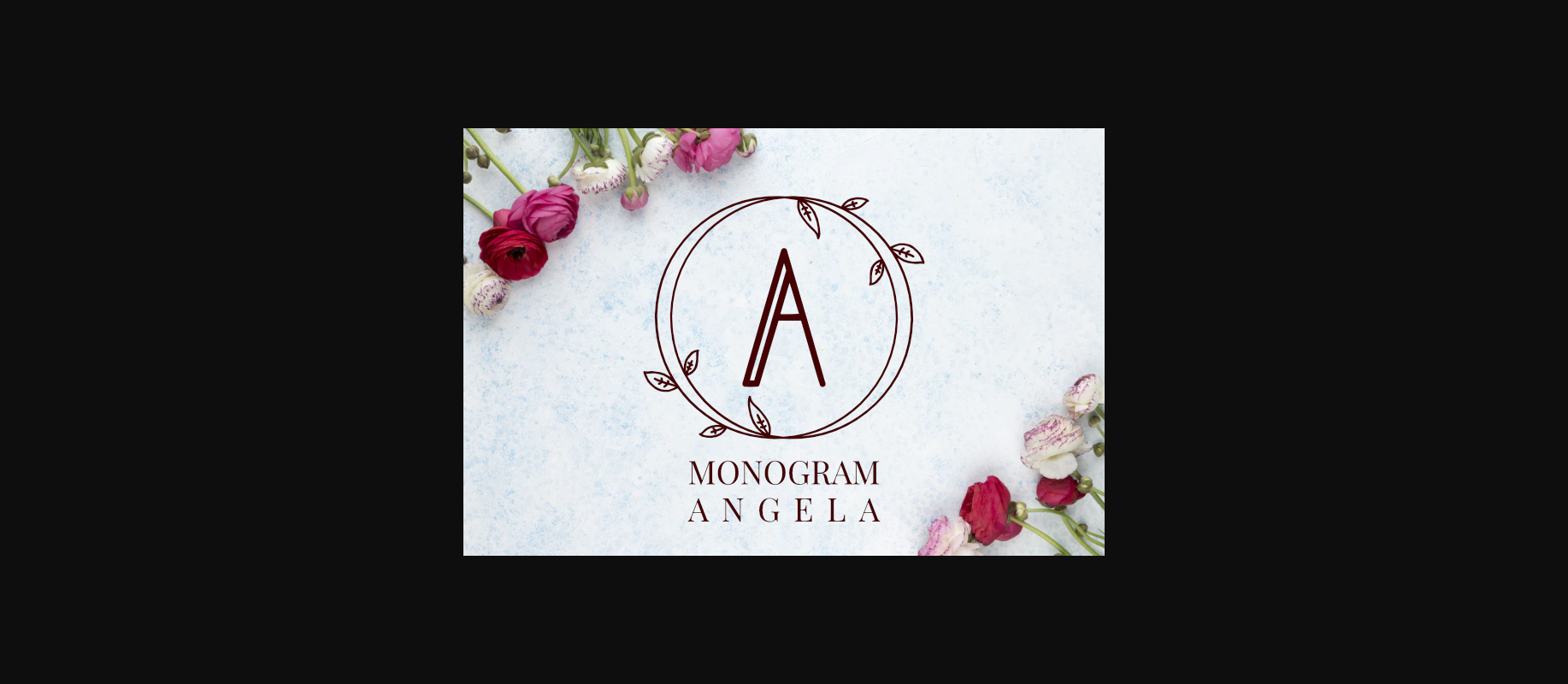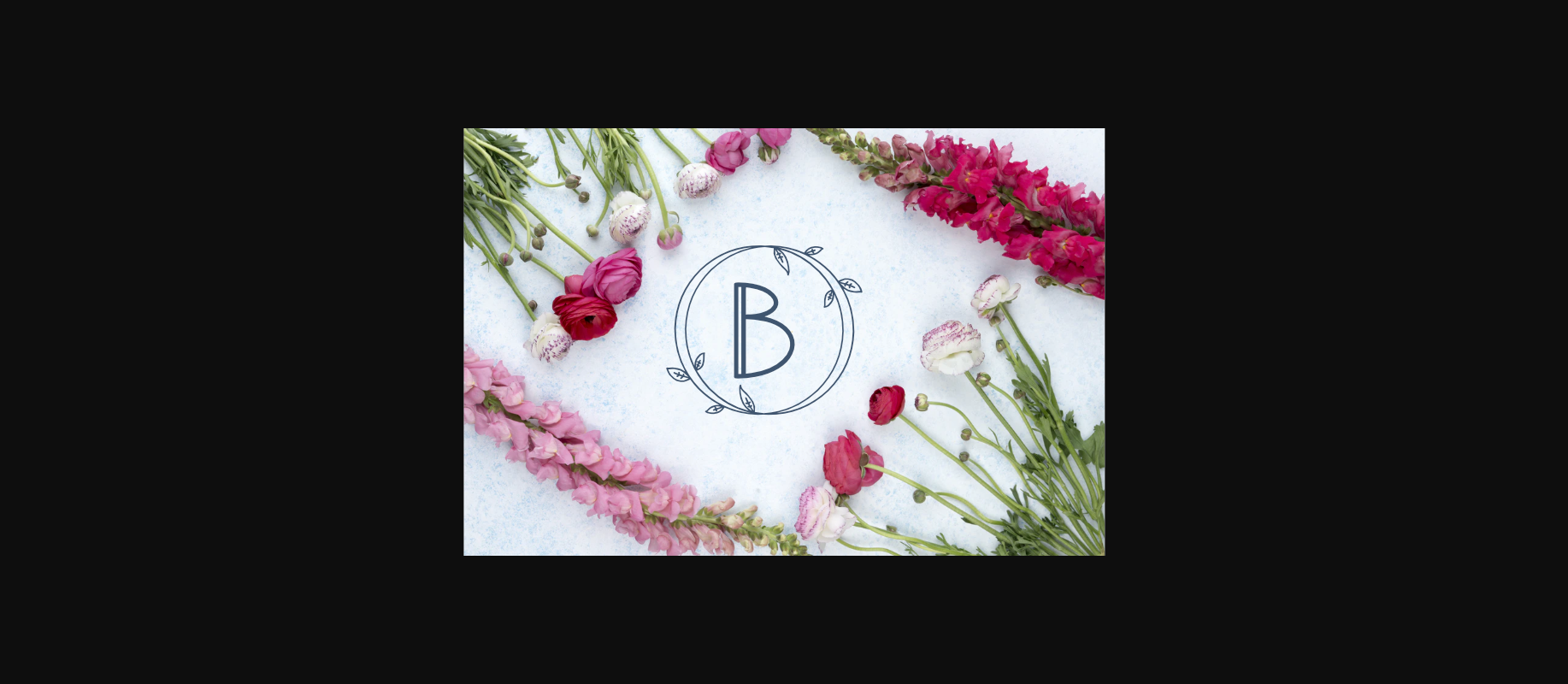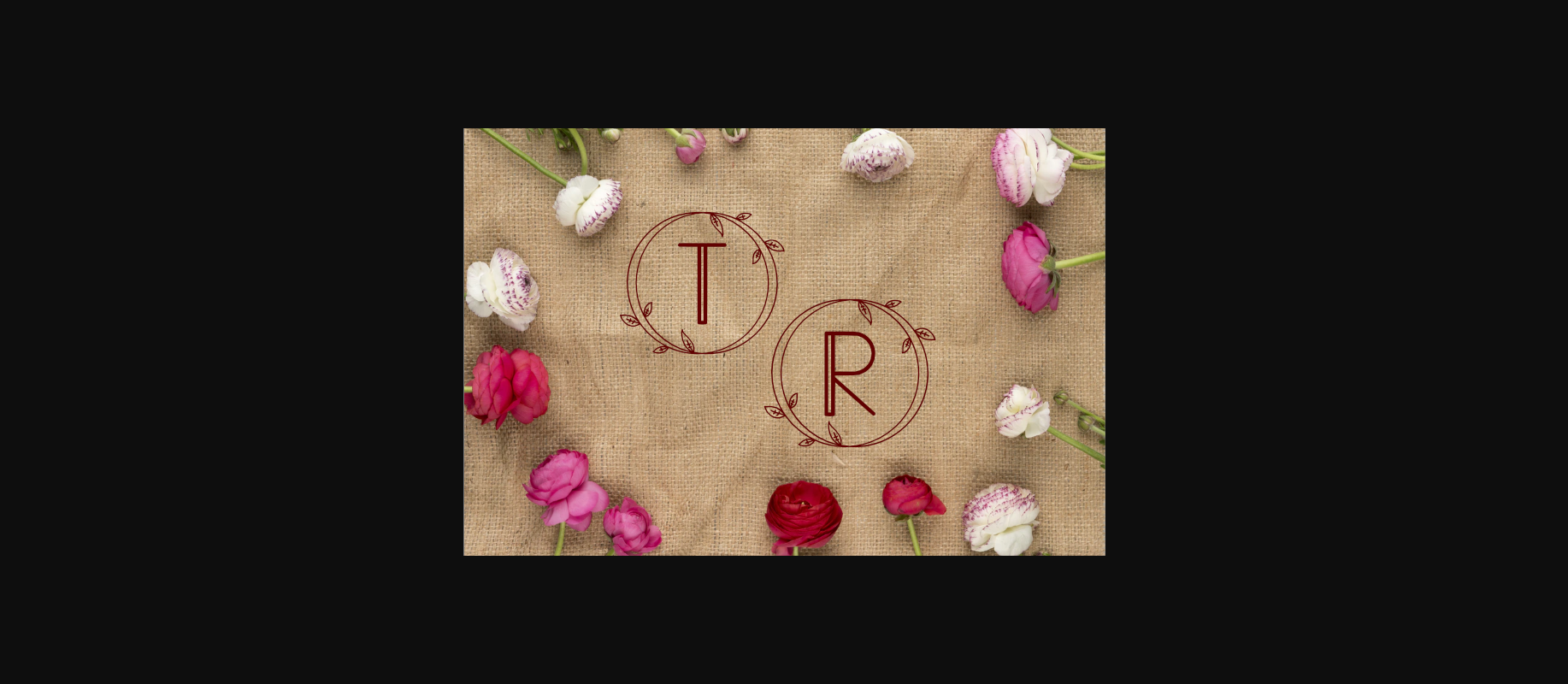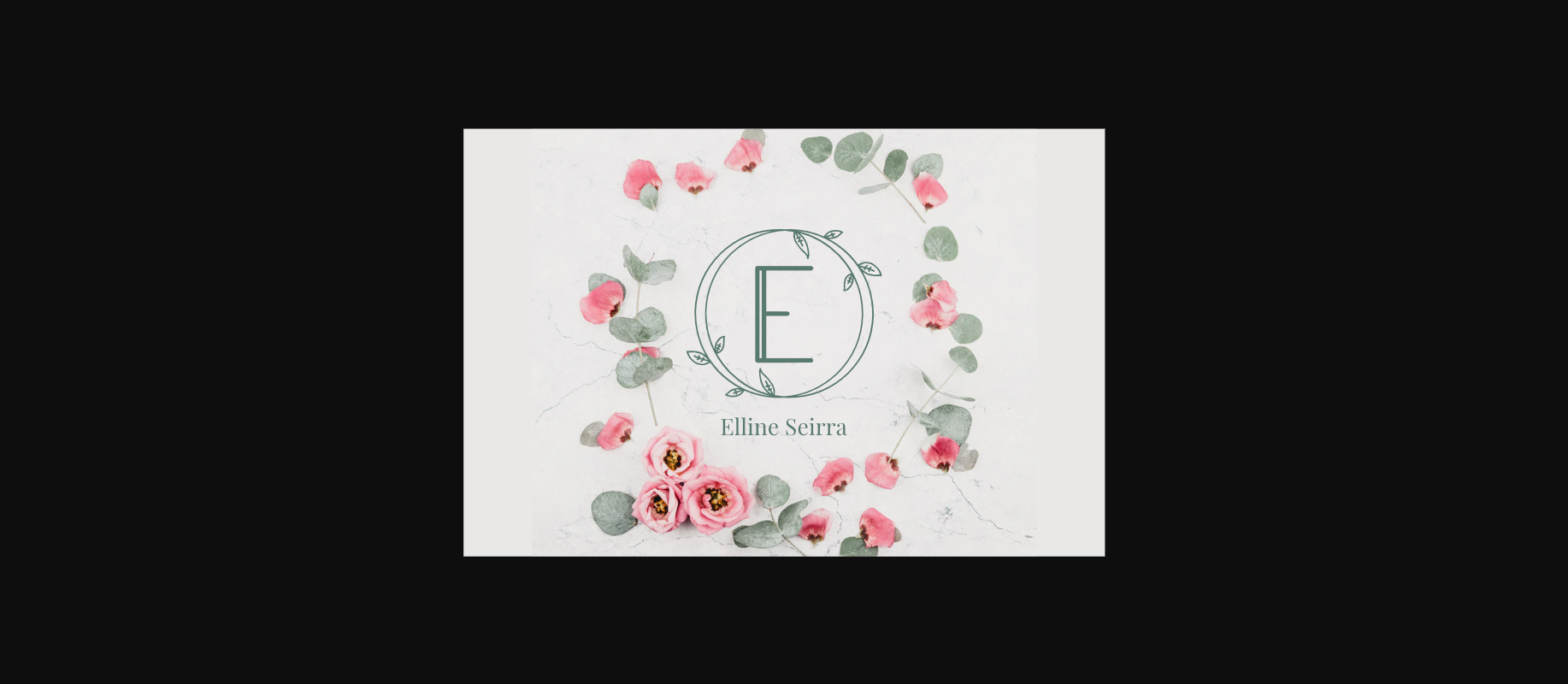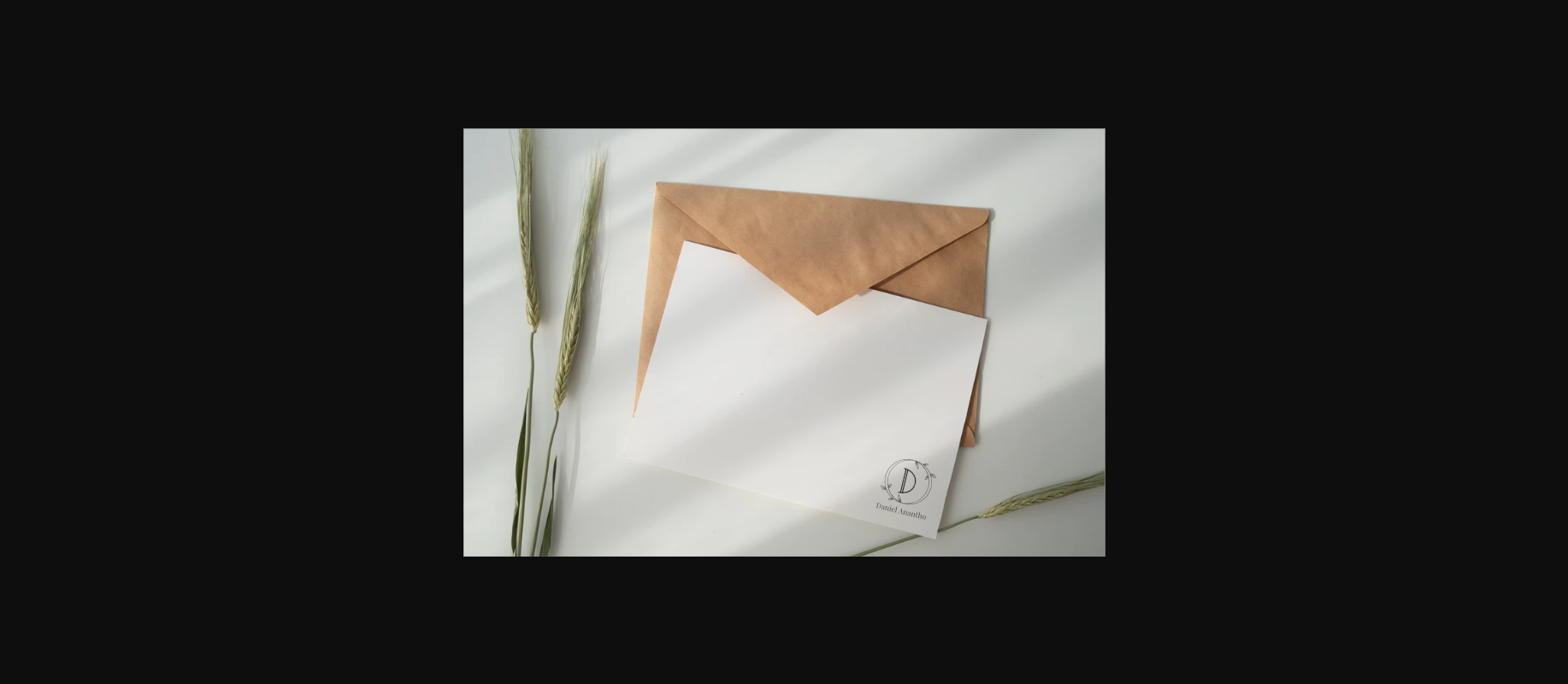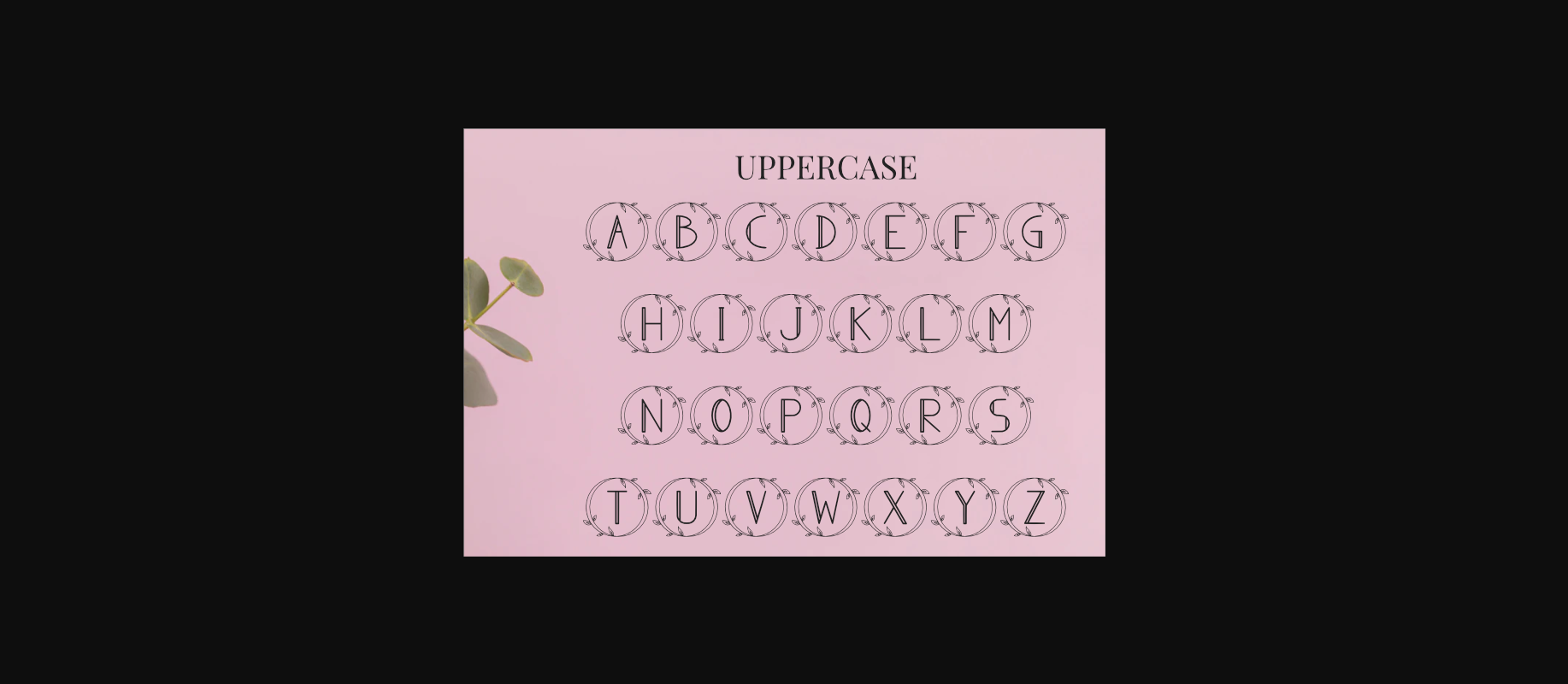
Monogram Angela Font
About Monogram Angela Font
Monogram Angela is a delicate and romantic decorative font. Add this lovely looking font to each of your love letters, wedding invitations or favorite design ideas, and you will be astounded by the outcome.